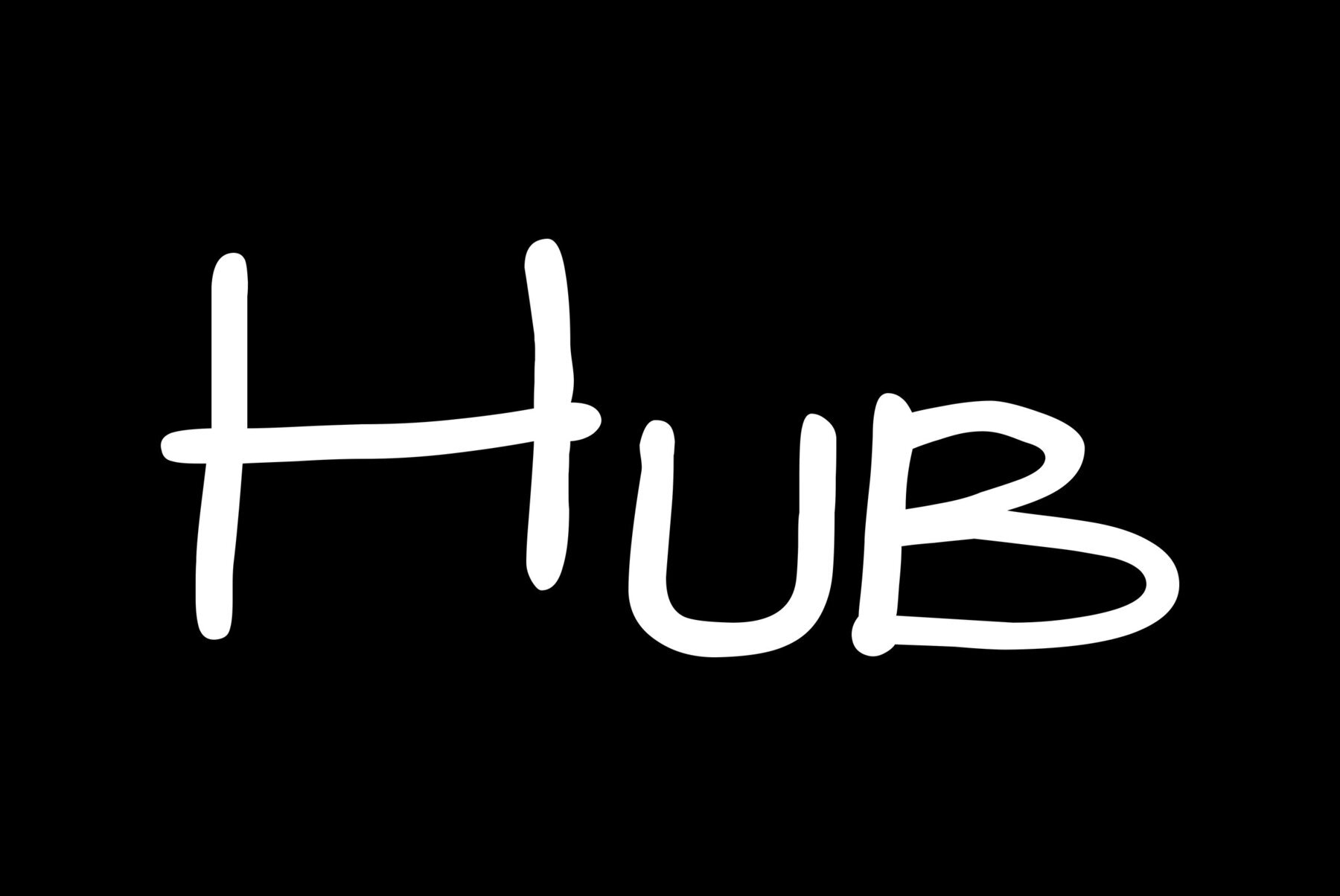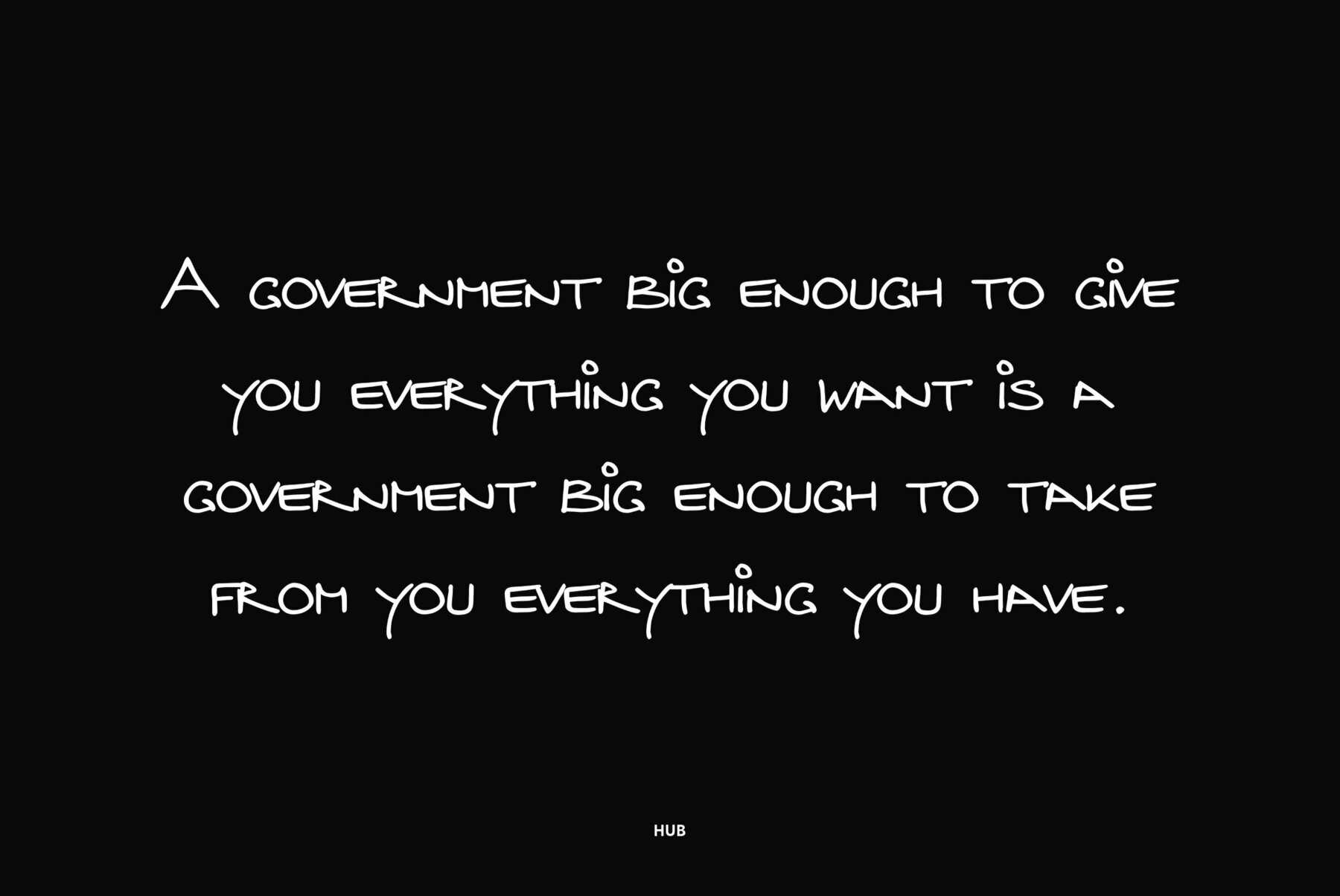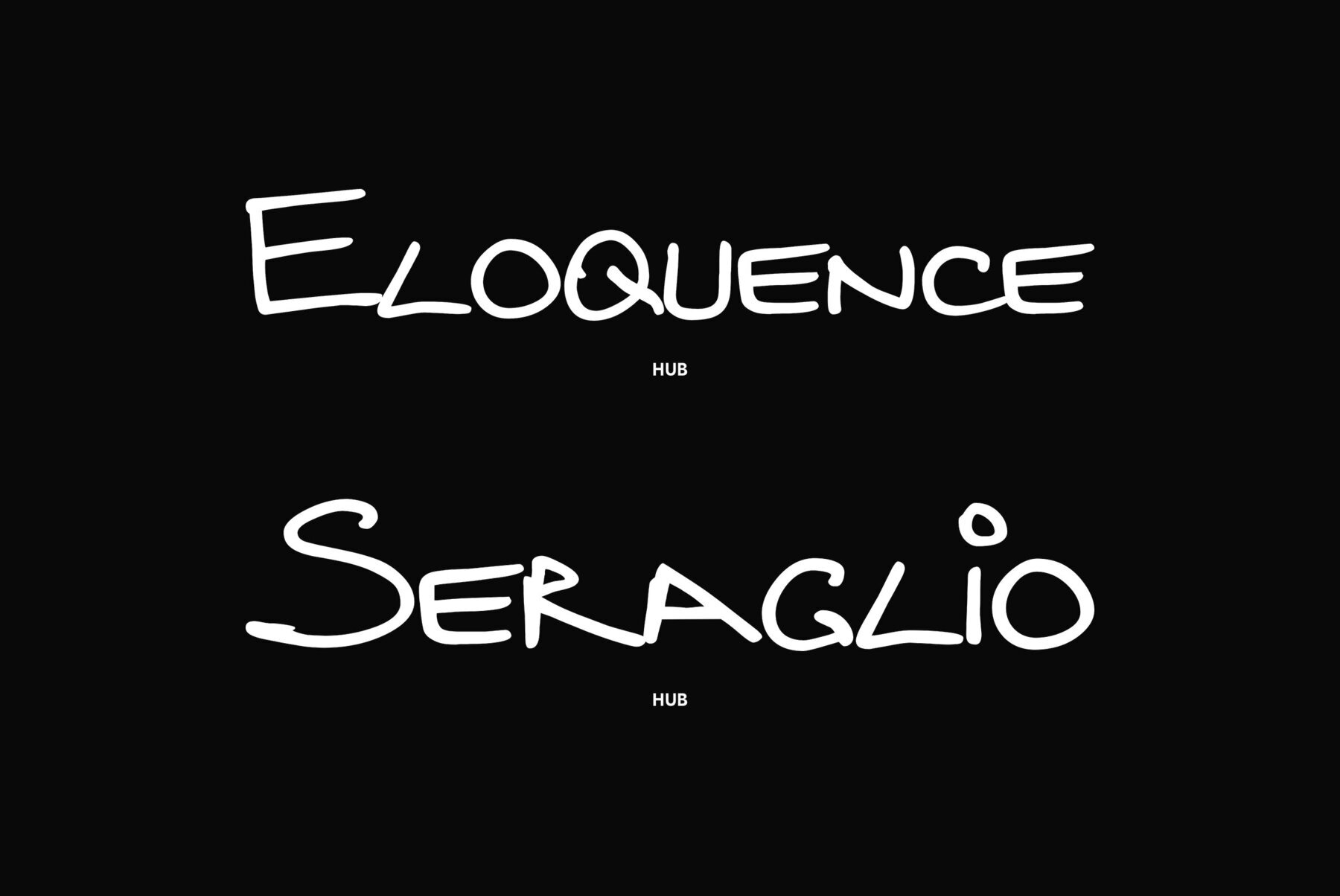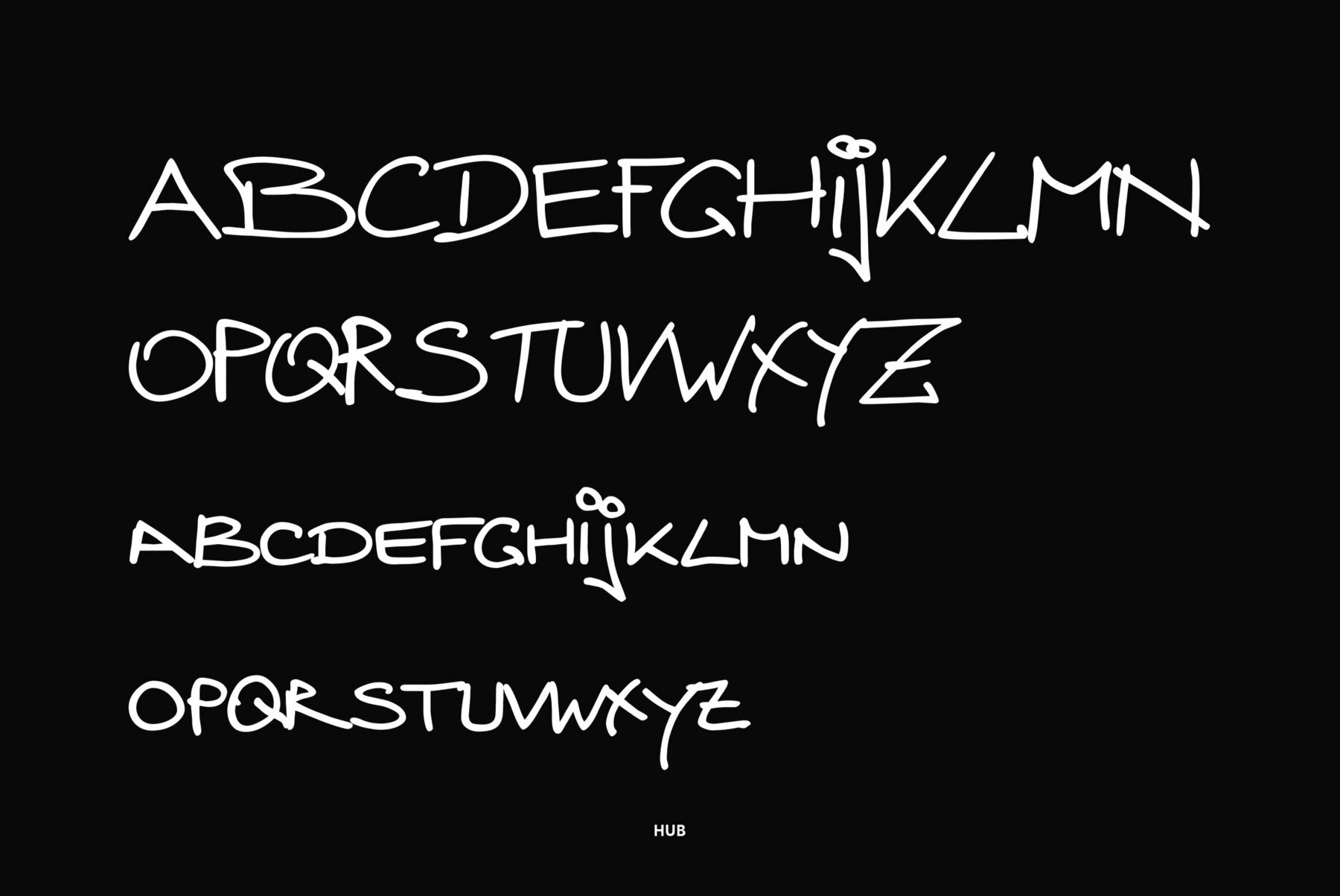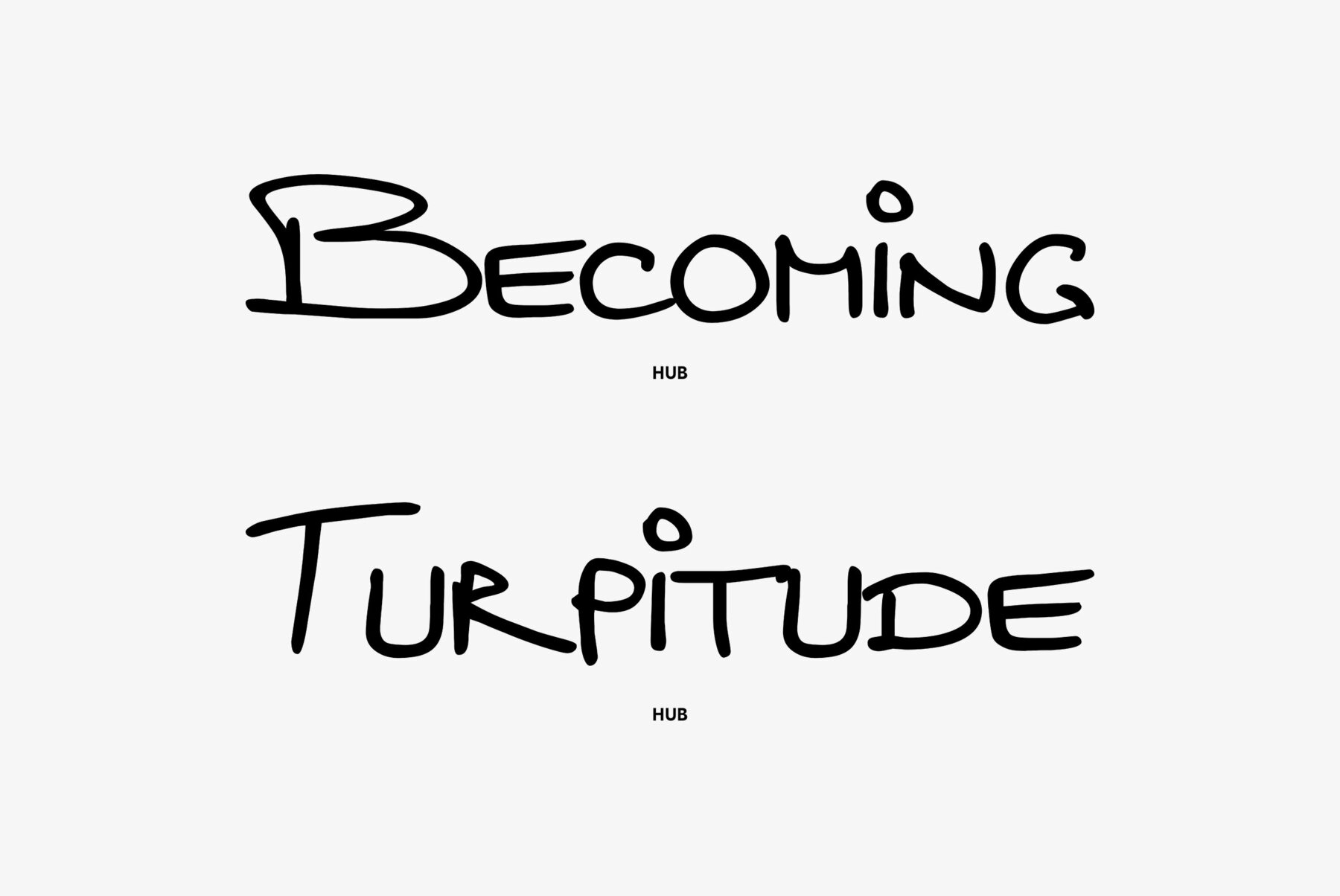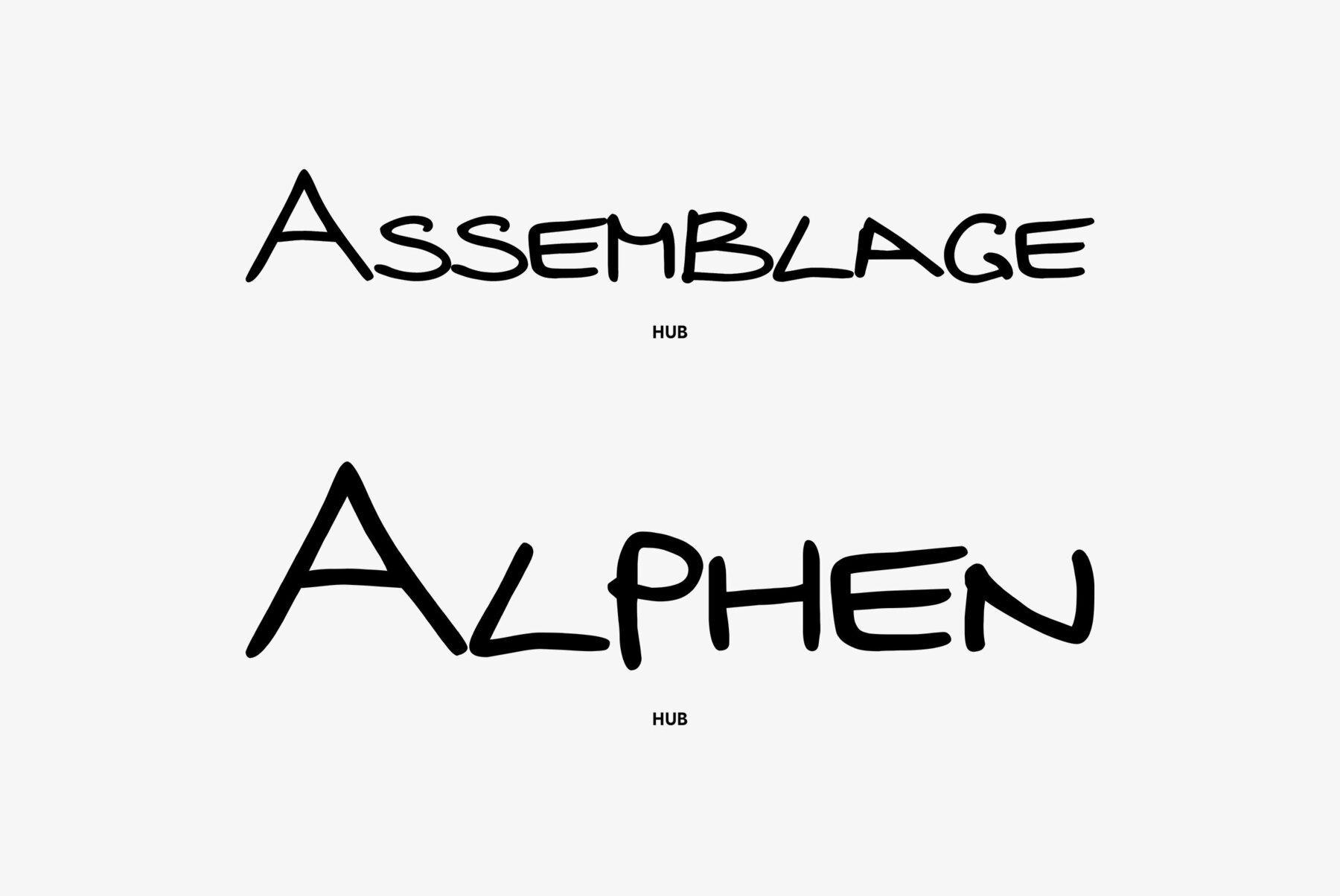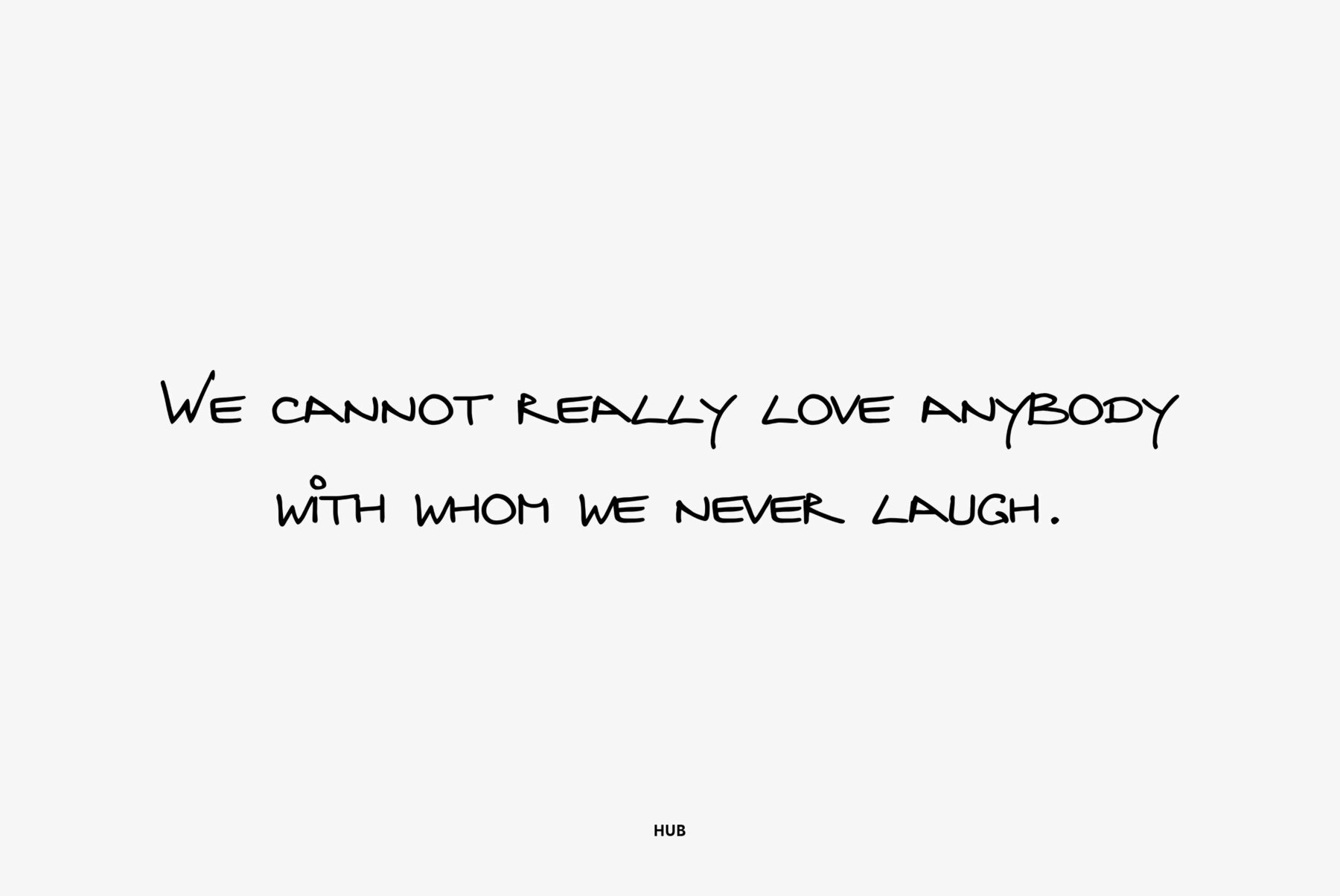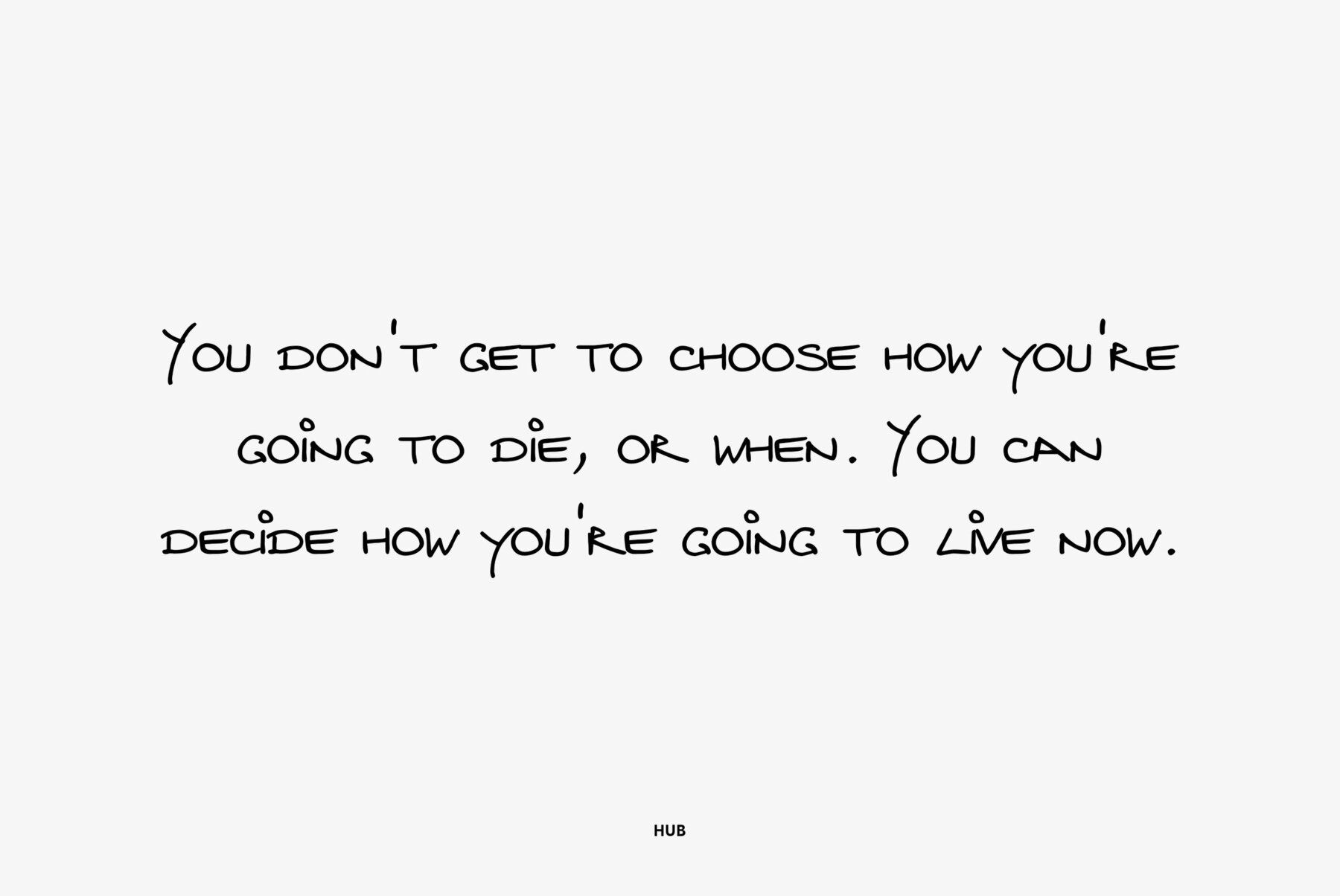
Designed by Gennady Fridman and released by ParaType in 2008. Hub represents so called block letter handwriting style, which becomes more and more usual and nowadays replaces traditional cursive handwriting. One of the reasons for these changes is an often requirement in official forms to write in block letters. Some forms contain even stricter rule – to write in capital letters. Hub was designed to meet these requirements and includes small caps instead of lower case letters. It’s recommended for use in advertising and display typography and especially when you need to show a sample of properly filled bureaucratic form.